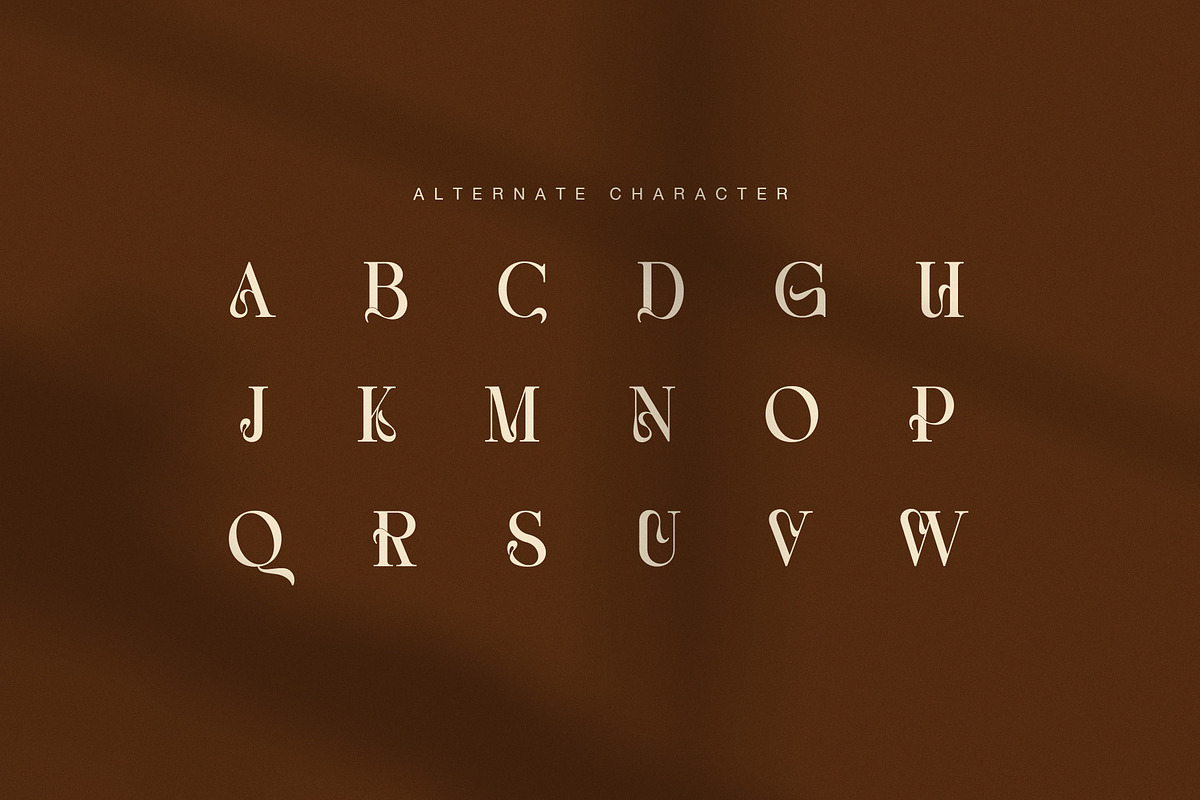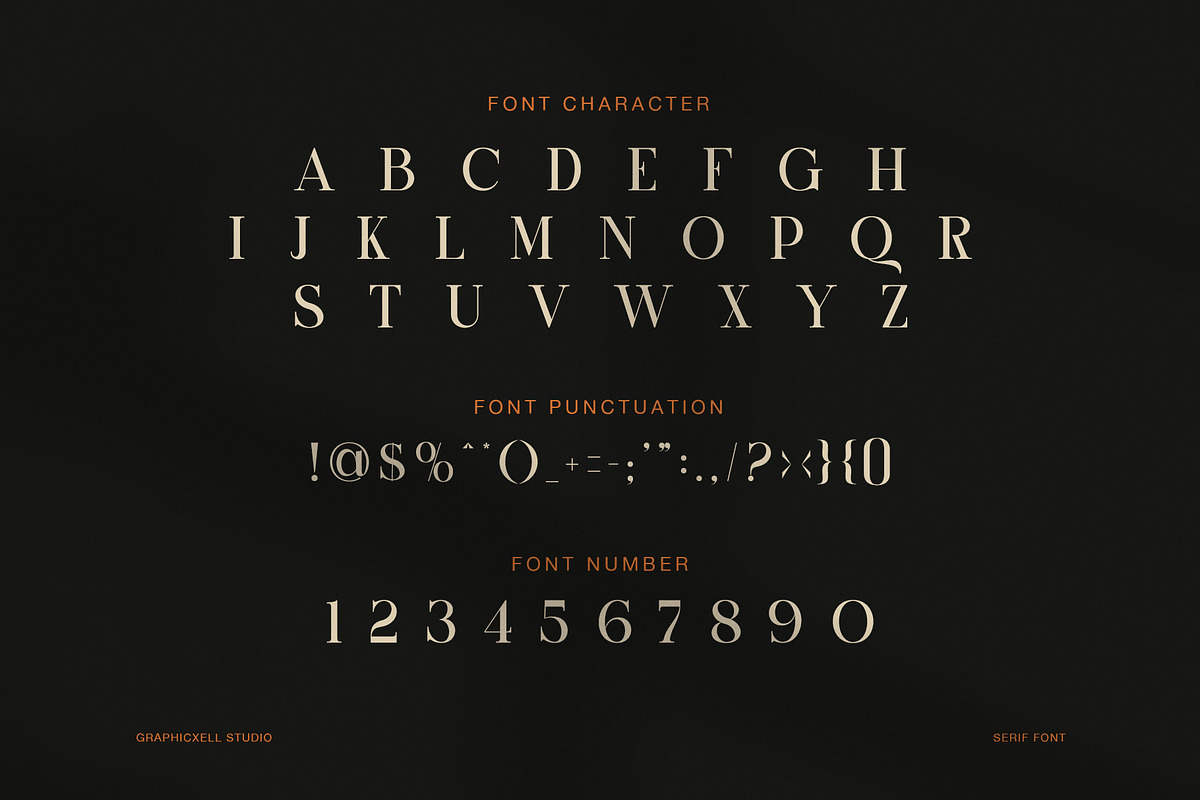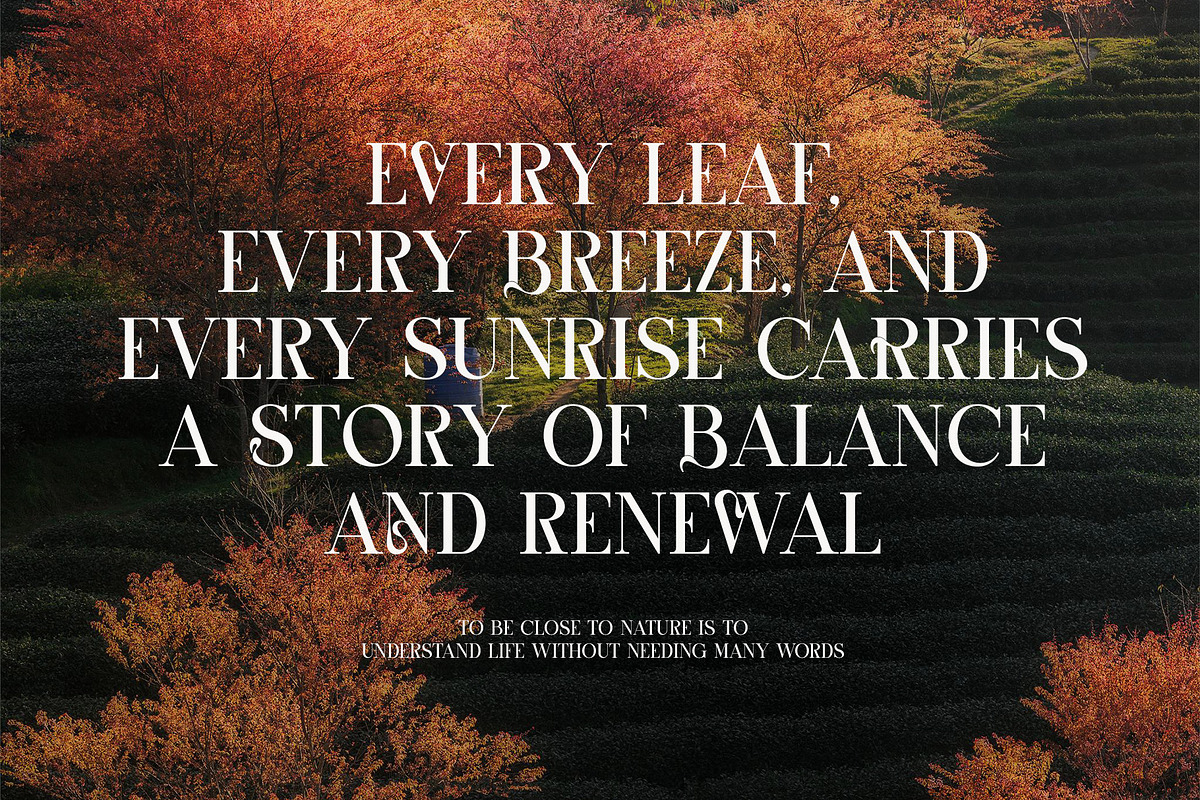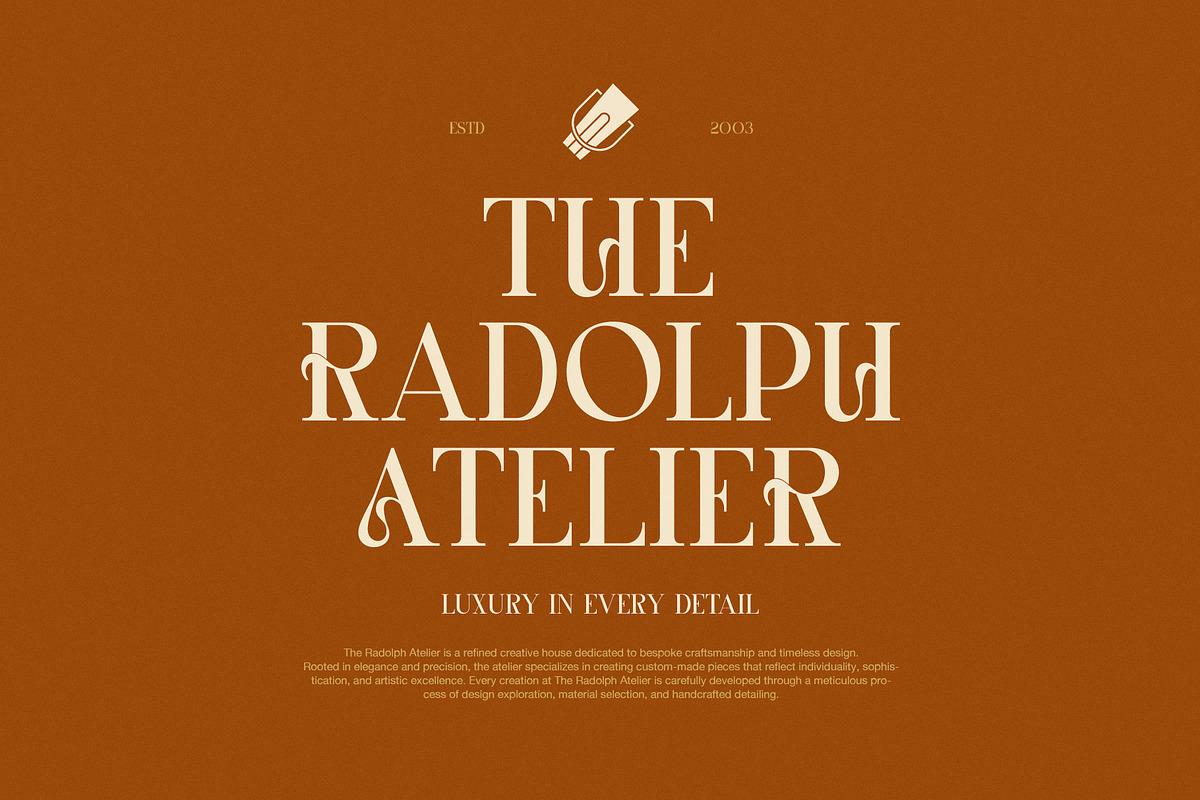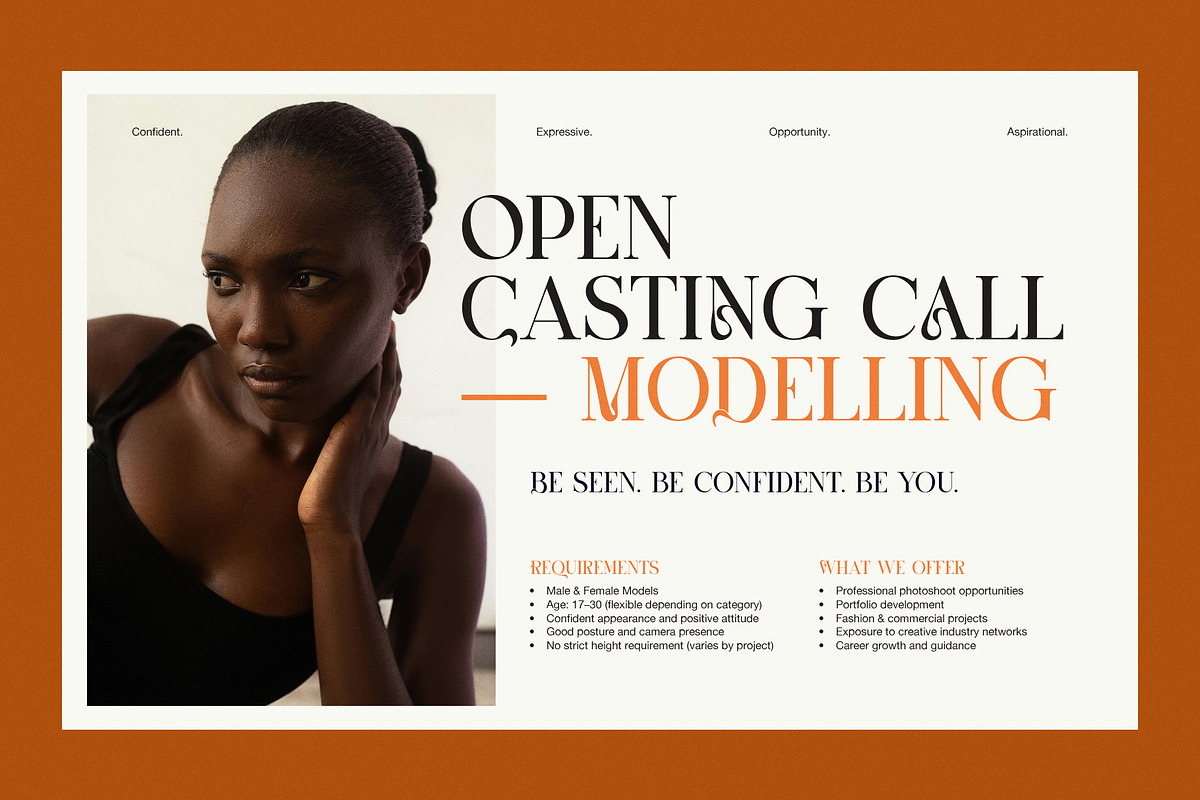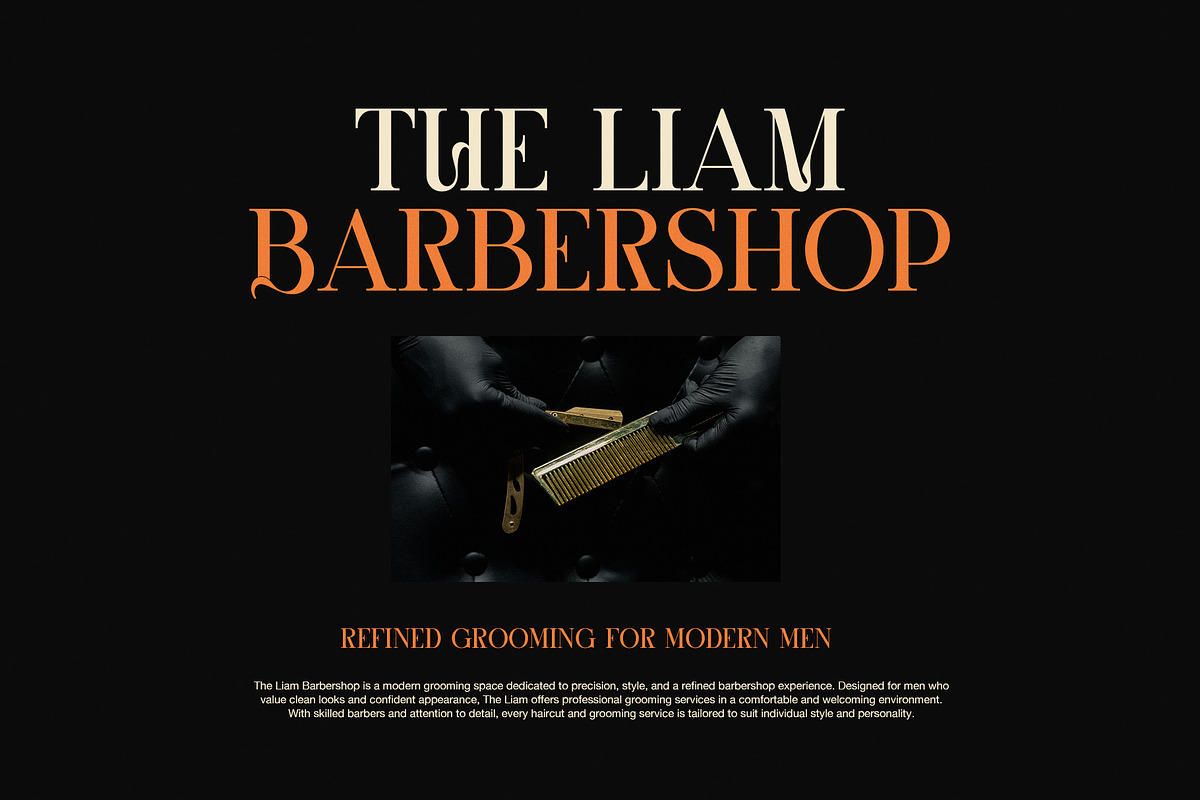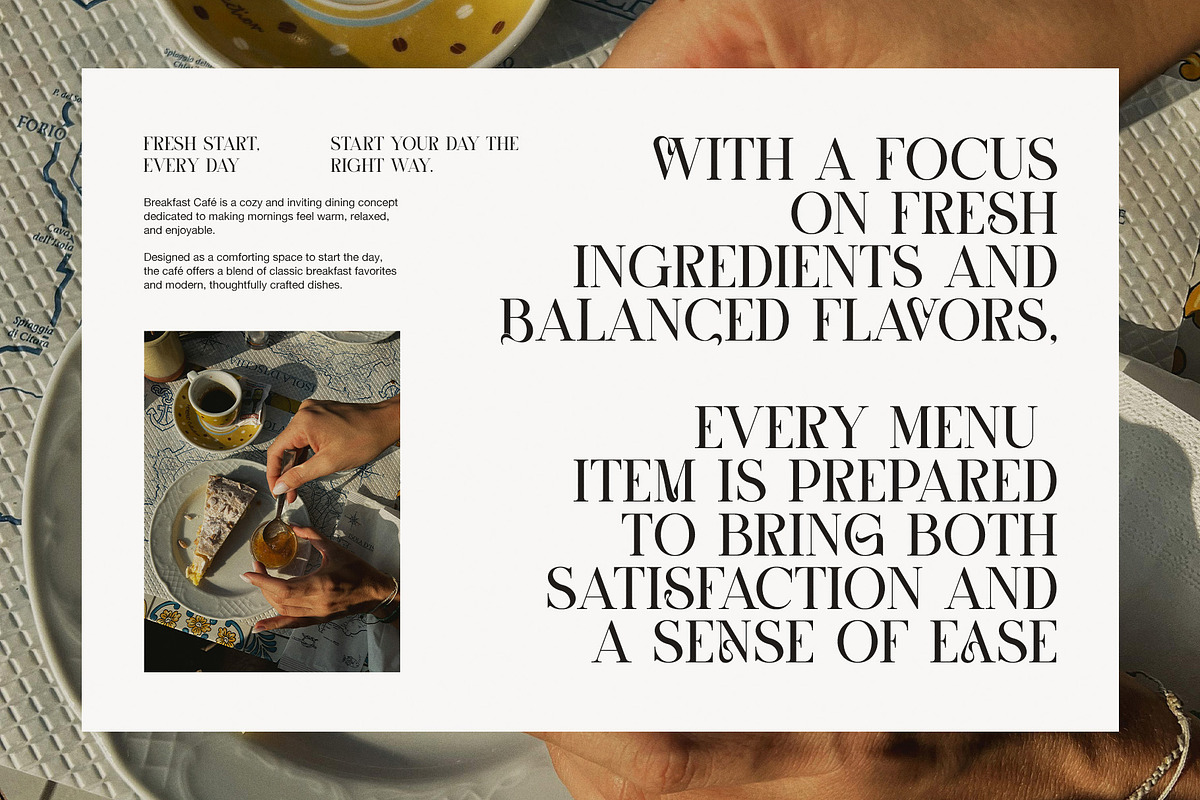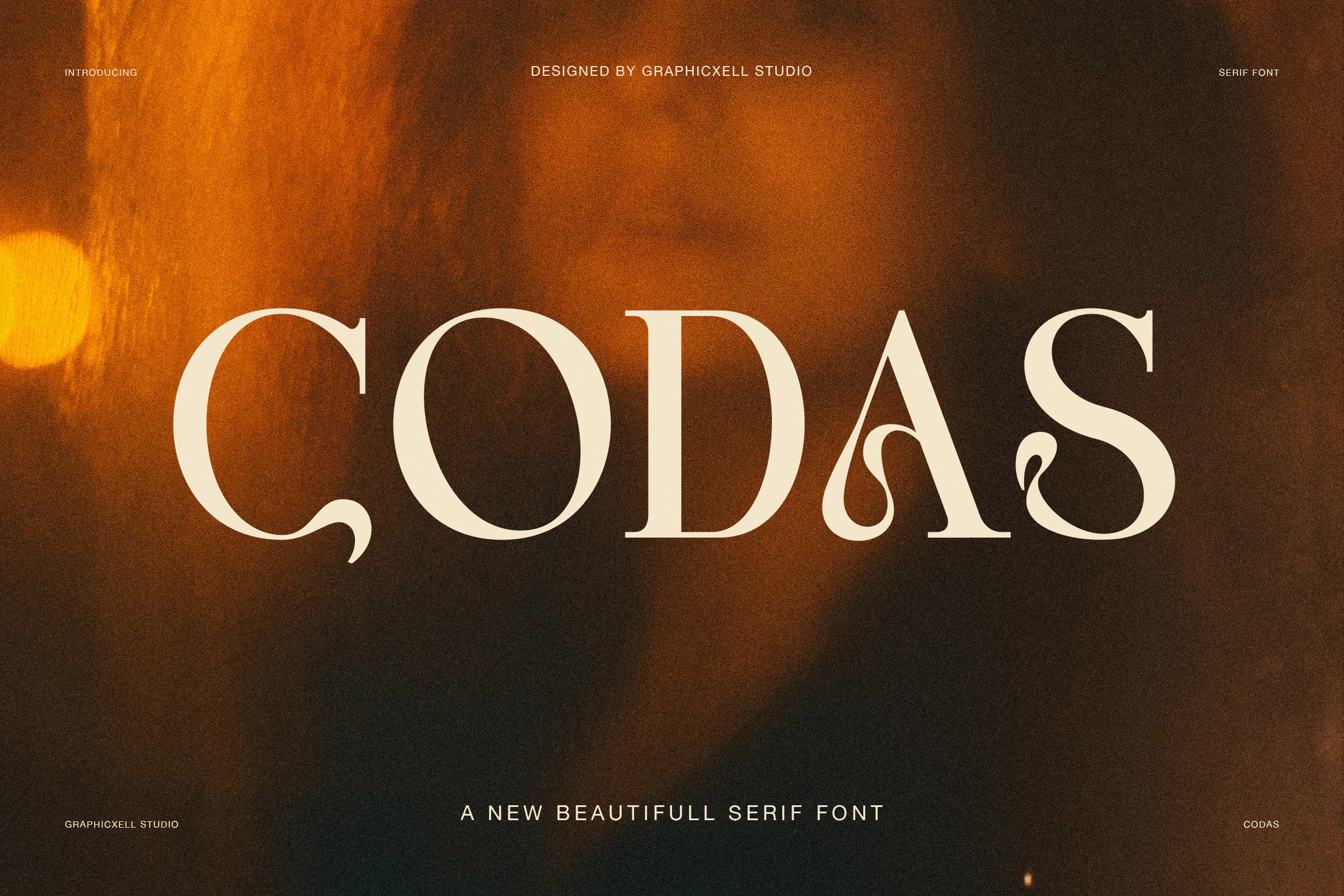
Codas Elegant Serif Font
Codas Elegant Serif Font is a graceful display serif made for designers who want a look that feels refined, artistic, and modern. At first sight, it shows a clean structure. However, the small details give it a more special voice. Its sharp serif style, tall proportions, and subtle decorative alternates create a look that feels both classic and fresh. Because of that balance, Codas is easy to use in premium branding and stylish visual work.
The main shape of this font is elegant and controlled. Each character has a slim body, clear contrast, and smooth rhythm. As a result, headlines look polished and memorable. In addition, several alternate capitals add a soft ornamental touch. These details help the font feel expressive without losing clarity. So, Codas is ideal for designers who want beauty with a calm and professional tone.
This serif font works best in display sizes. For example, it looks strong in logos, packaging, posters, editorial titles, hotel branding, fashion campaigns, café menus, and personal identity systems. Likewise, it fits creative studios, lifestyle brands, model agencies, architecture presentations, and luxury product labels. Since the font feels elegant but not too formal, it can move across many design themes with ease.
Codas also has a timeless mood. Yet, it still feels current because the letterforms stay clean and well spaced. Therefore, it pairs nicely with modern layouts, minimal compositions, and strong photography. Moreover, the alternates give you extra freedom when shaping logos, initials, and standout headlines.
Why designers may choose Codas:
Elegant serif style with a modern display feel
Decorative alternate characters for a unique look
Clean proportions with refined contrast
Great for logos, headlines, and visual branding
Useful for fashion, beauty, hotel, and editorial design
Creates a premium and memorable impression
Overall, Codas Elegant Serif Font is a strong choice for projects that need style, clarity, and quiet luxury. It feels artistic, but it still stays readable. It feels classic, yet it also suits modern branding. Because of that, Codas can help your design feel more polished, more expressive, and more valuable. If you need a serif display font with elegance and character, Codas is a beautiful solution.